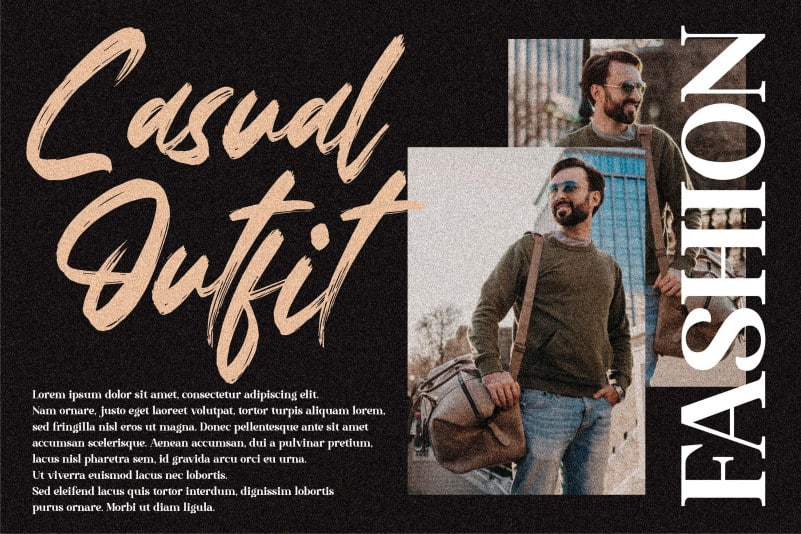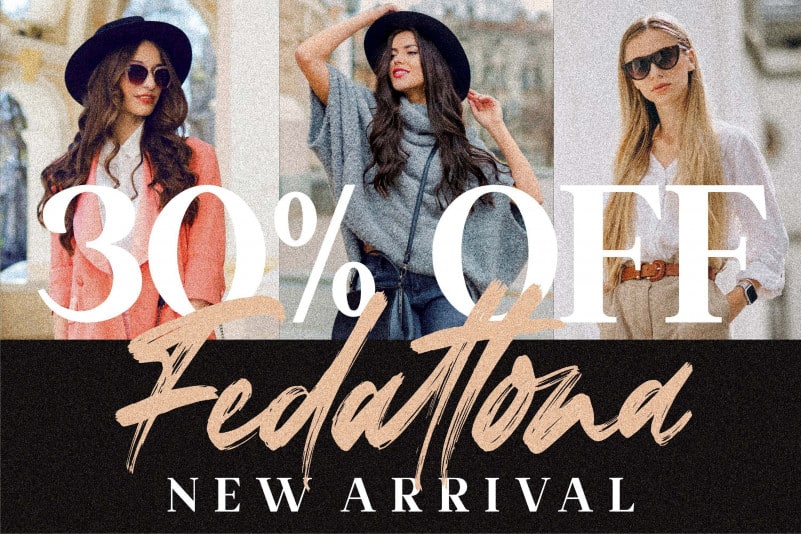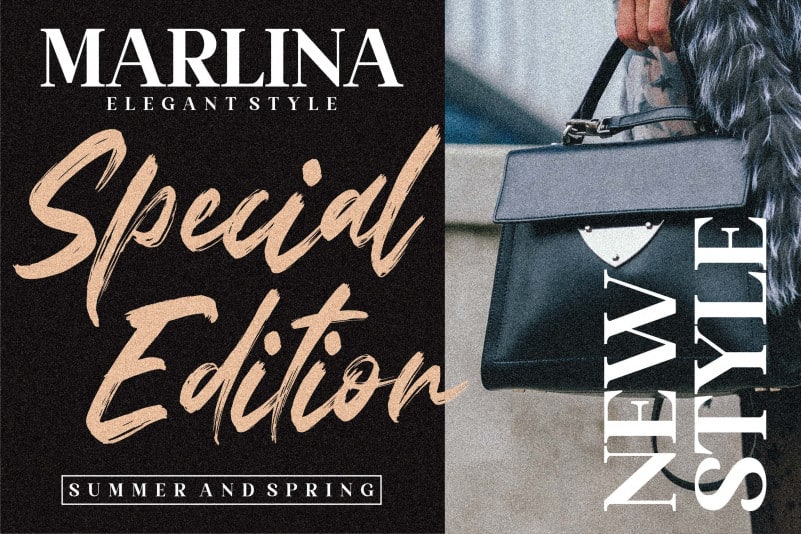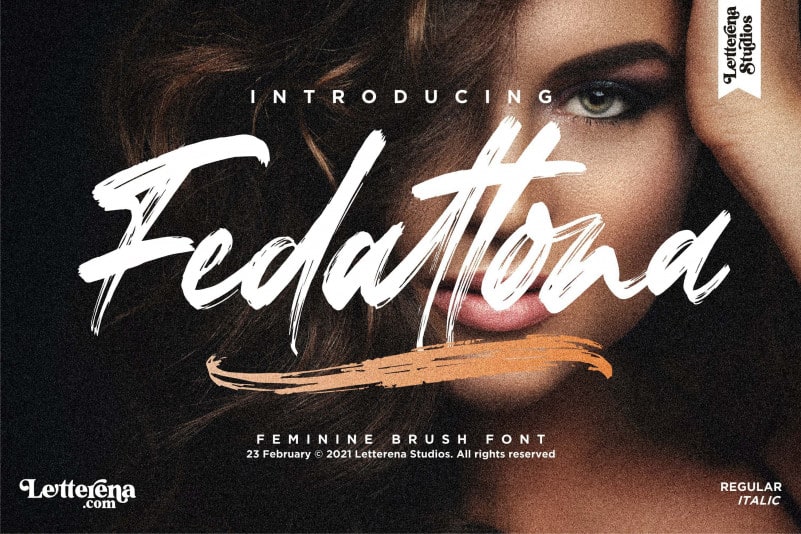
Fedattona Brush Font, designed by Letterena Studios is an amazing handwritten brush font. Created with brush pen to give a great contrast between thick and thin curves. Suitable for any projects such as: logos, branding projects, homeware designs, product packaging, mugs, quotes, posters, shopping bags, t-shirts, book covers, name card, invitation cards, greeting cards, label, photography, watermark, special events, and all your other luxury projects that need a feminine brush taste.